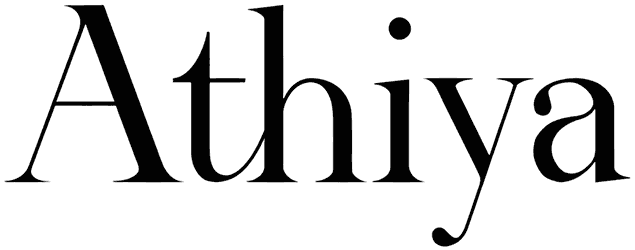
Athiya Font
Your design’s words are gonna have a classic and stylish vibe if you pick up this serif font. The humble letters of this basic font perfectly match any title, and you have a chance to have a professional design of a manager’s business card or anything else. Set the Athiya font on your next project and reveal your creativity.